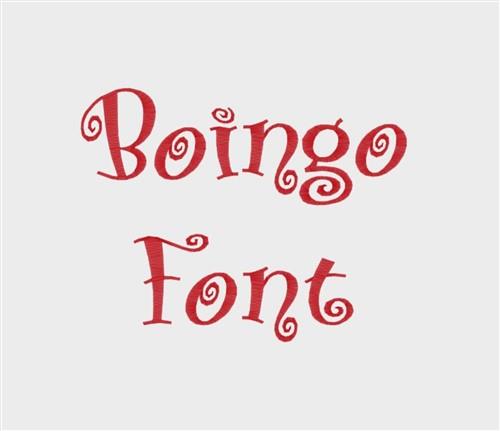
Artsy Knots is happy to present Boingo curly Embroidery Font - Playful Handwriting Style - PES, DST & 6 formats machine embroidery font which has Playful machine embroidery font with bold, swirling letters perfect for decorating clothes and accessories. Ideal for tote bags and similar projects. Available in PES, DST and 6 other formats. included. If you would like to view more embroidery fonts and alphabets please search our embroidery fonts page.